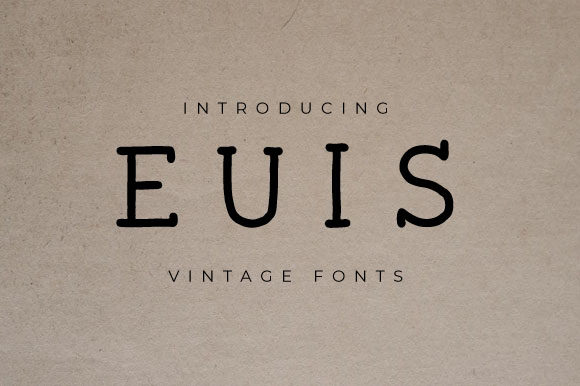
Euis
Euis: A Cool and Simple Slab Serif Font
Euis is a distinctive slab serif font that combines coolness with simplicity. This typeface offers designers a versatile tool for creating impactful typography across a wide range of design projects.
Key Features of Euis
• Cool Design: Features a trendy and appealing aesthetic
• Simple Style: Maintains a clean and uncomplicated look
• Natural Feel: Incorporates an organic, approachable quality
• Neat Appearance: Offers a tidy and well-organized typography
• Slab Serif Structure: Includes the characteristic thick, rectangular serifs typical of slab serif fonts
• Versatile Application: Suitable for a large pool of design contexts
Ideal Uses for Euis
Euis’ unique characteristics make it particularly well-suited for:
• Modern branding and logo design
• Editorial layouts and magazine designs
• Website headers and digital content
• Packaging design for contemporary products
• Social media graphics and marketing materials
When incorporating Euis into your designs, consider the following tips:
• Use for both headlines and body text to showcase its versatility
• Experiment with different sizes to create hierarchy while maintaining readability
• Pair with sans-serif fonts for a balanced, contemporary look
• Consider using it in projects where you want to convey a cool, natural vibe
• Let your imagination run wild – Euis’ adaptability allows for creative applications
Euis is an excellent choice for designers looking to add a cool and simple slab serif to their typographic toolkit. Its natural and neat style makes it stand out in the world of typography. Whether you’re working on logo designs, creating layouts for editorial projects, or developing branding for various businesses, Euis offers the perfect blend of coolness and simplicity.
Explore how Euis can bring a cool and natural edge to your design projects. From modern branding to engaging digital content, this font provides the tools to create impactful and readable typography that stands out in various design contexts. With Euis, the only limit to your typographic creativity is your imagination!